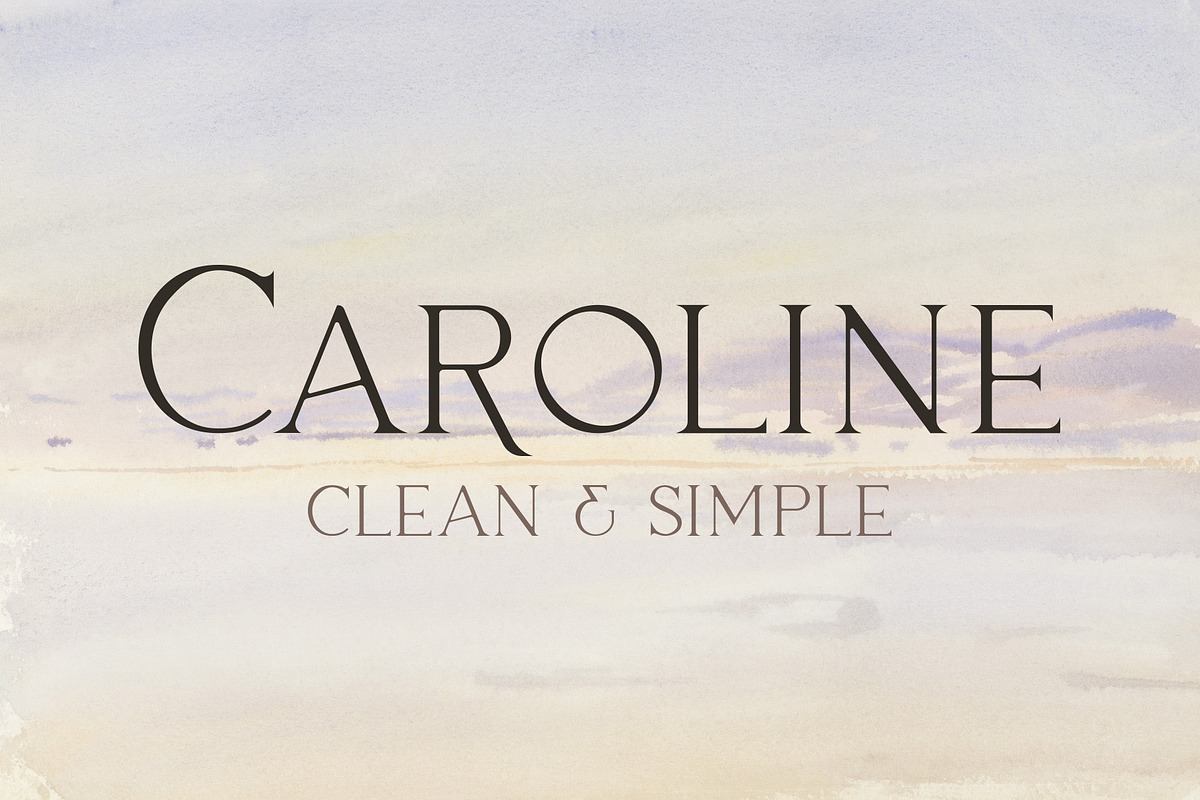
Caroline – Minimal Modern Typeface Free Download is a sleek and stylish font designed for simplicity and elegance. With its clean lines, subtle curves, and modern aesthetic, Caroline is perfect for branding, editorial design, fashion lookbooks, logos, and minimalist websites.
This typeface delivers a refined yet approachable feel, making it ideal for high-end designs that need to communicate clarity and sophistication. Its versatility allows it to shine in both headings and body text across print and digital platforms.